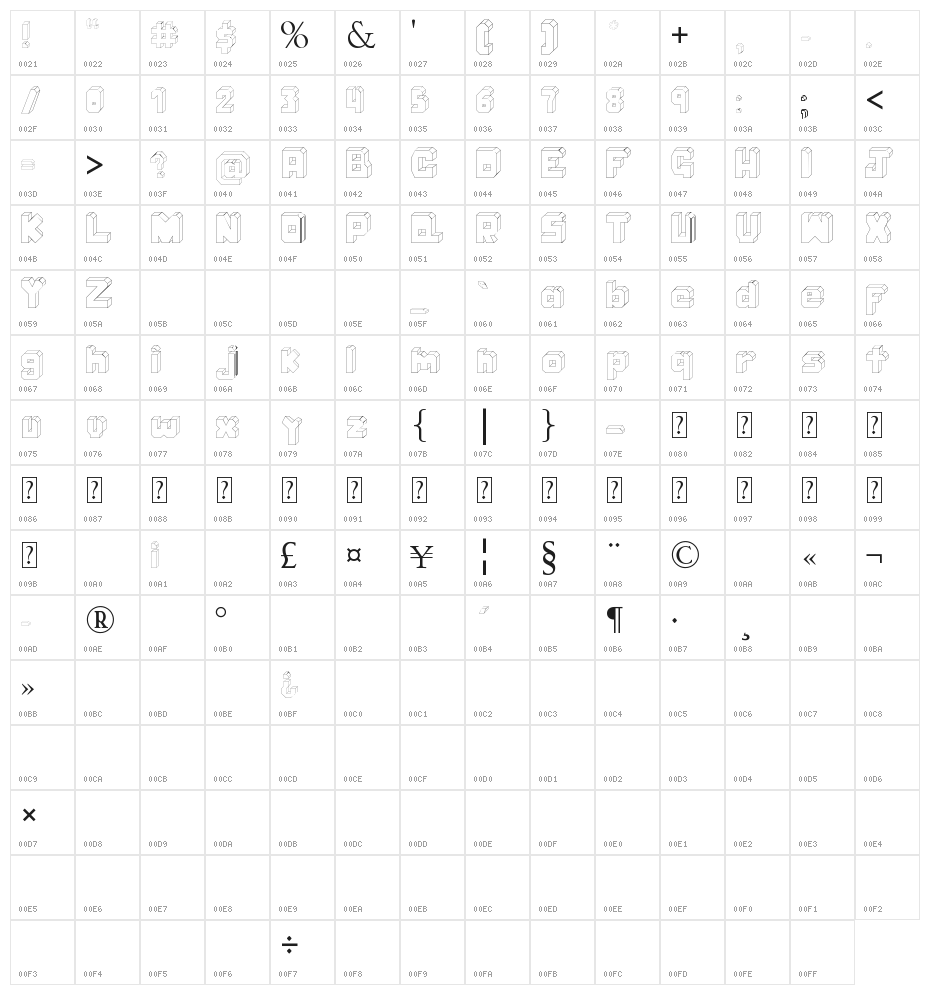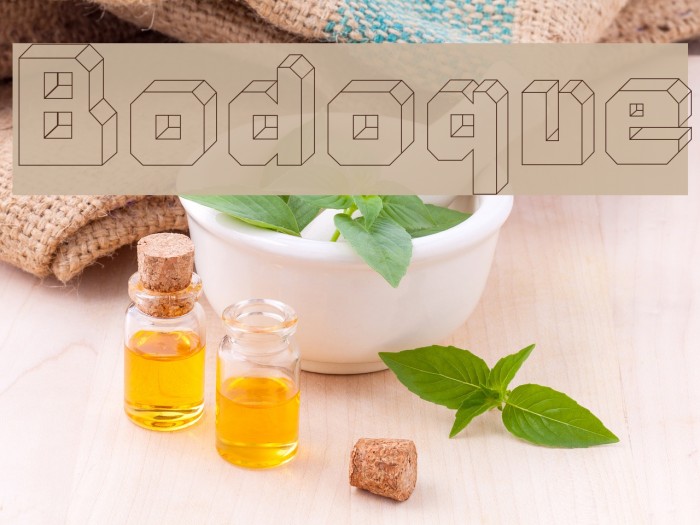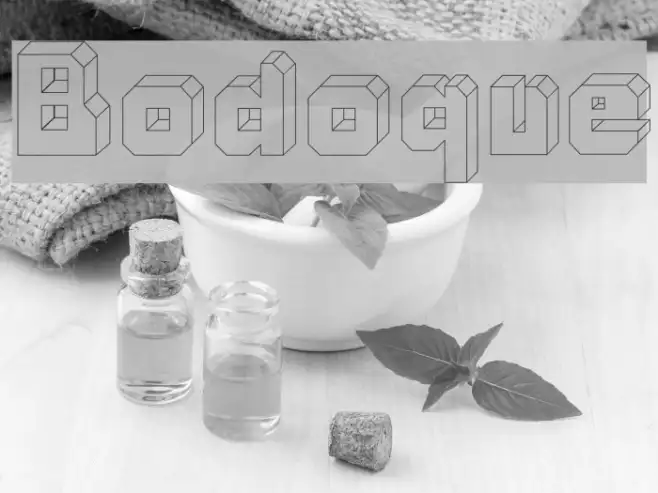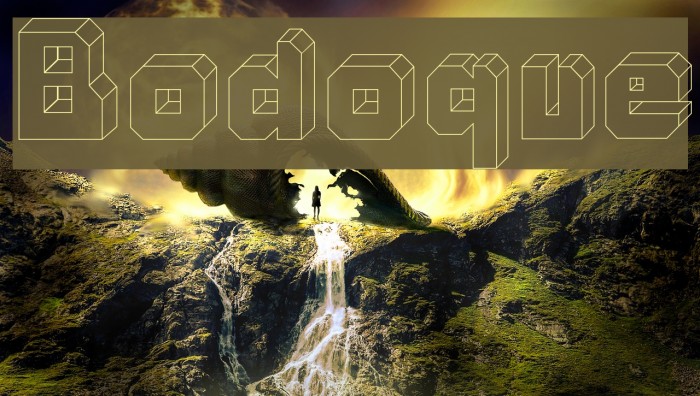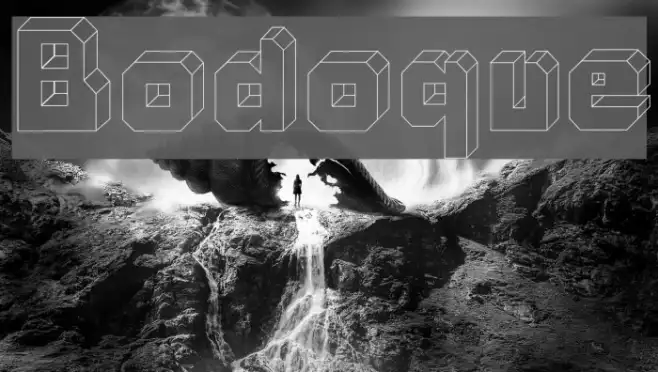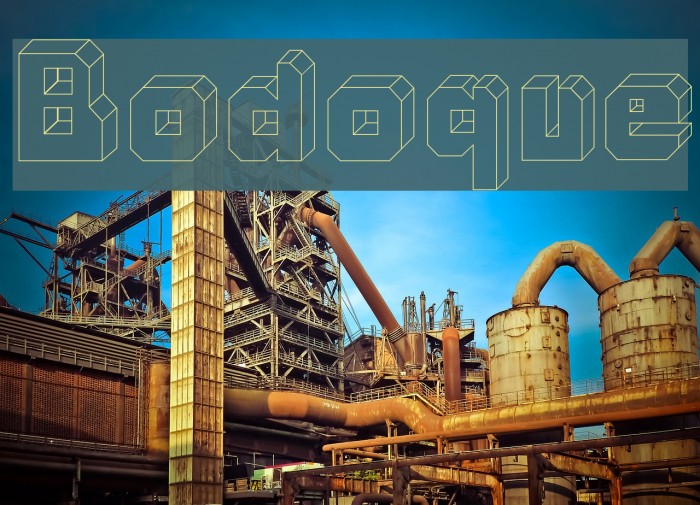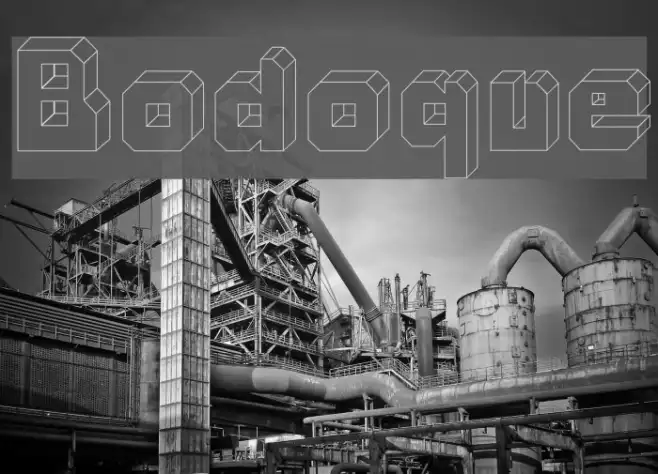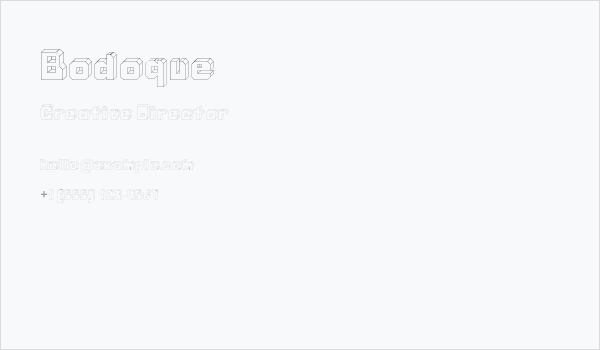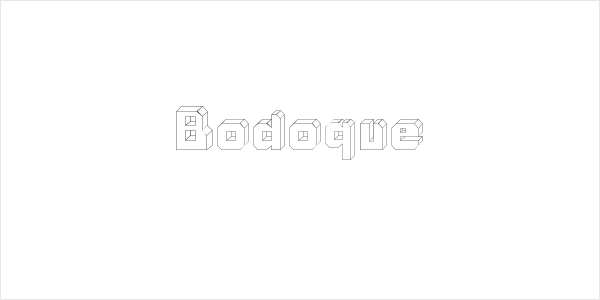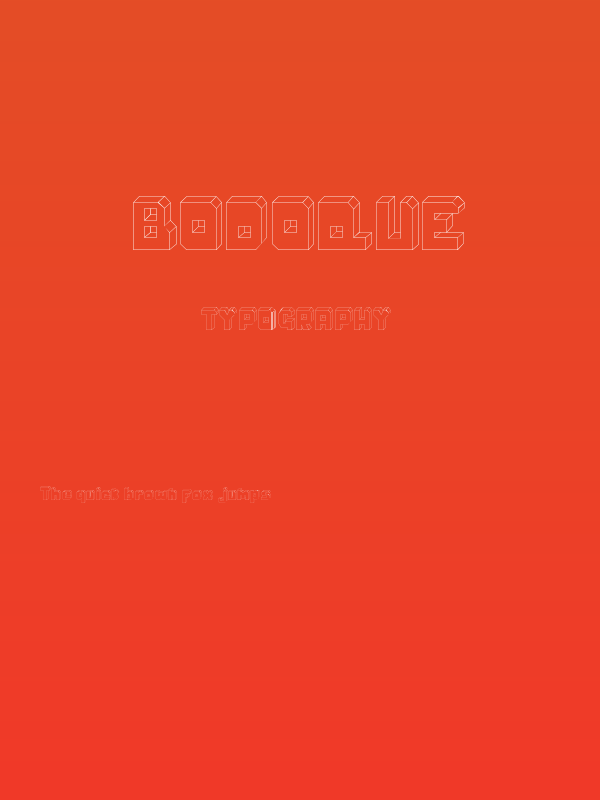
Bodoque Font
Bodoque Description
This font features a bold, geometric design with a three-dimensional effect. Each character is constructed with sharp angles and distinct edges, giving it a block-like appearance. The letters and numbers are outlined, creating a hollow effect that enhances the 3D illusion. The style is consistent across uppercase, lowercase, and numeric characters, maintaining a uniform look. Special characters are also included, following the same design principles. This font is visually striking and commands attention with its unique, modern aesthetic.
| Proposed Projects | Ideal for modern branding, posters, video game graphics, and any project requiring a bold, eye-catching typeface. |